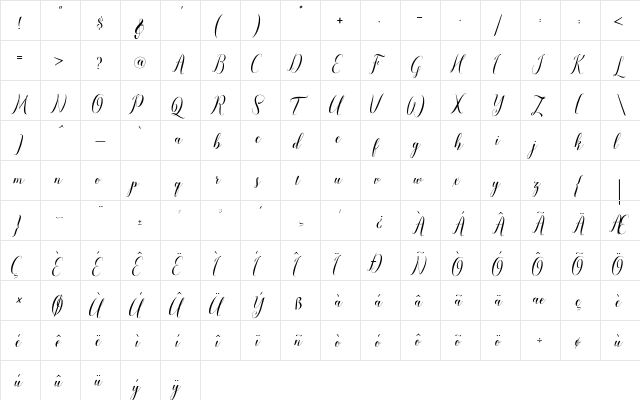
pauline script Regular
| Foundry | kurniadi saputra |
| Designer | kurniadi saputra |
Design Context for pauline script Typeface
pauline script brings a calligraphic fluidity to the page — its connecting strokes and expressive curves give it an unmistakably human quality.
Font Pairing: Combine pauline script with a simple geometric sans for maximum contrast — the tension between flowing curves and clean structure is a classic typographic pairing.
Pro Tip: Pair pauline script with a clean sans-serif for supporting text. The contrast between fluid script and geometric structure creates an elegant typographic hierarchy.